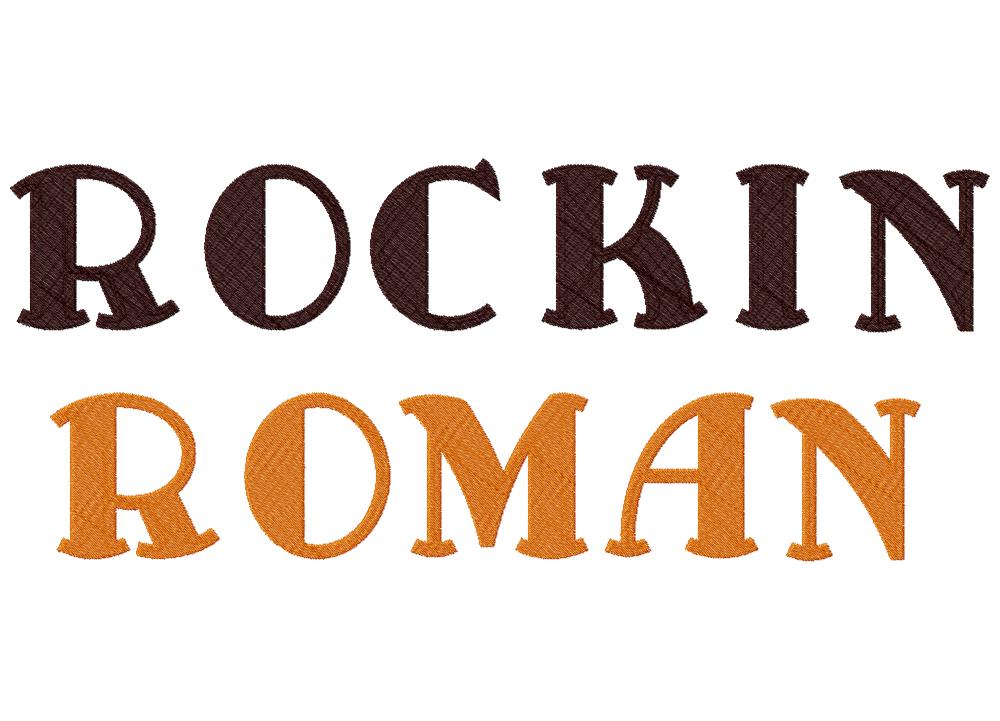
Stitch out this bold machine embroidery font set on any project that needs a bit of monogramming fun!
The Rockin Roman Machine Embroidery Font Set includes all Uppercase, Lowercase, Numbers and Bonus Punctuation in all of the following sizes: 1″ 2″ & 3″